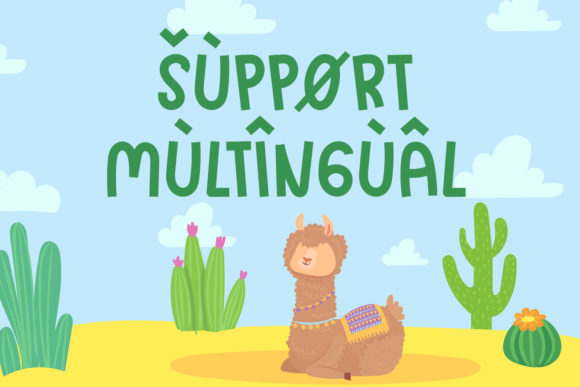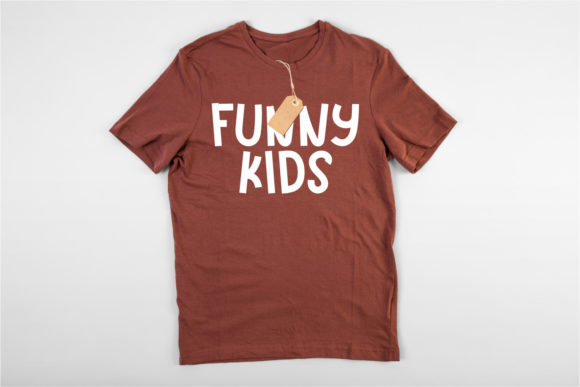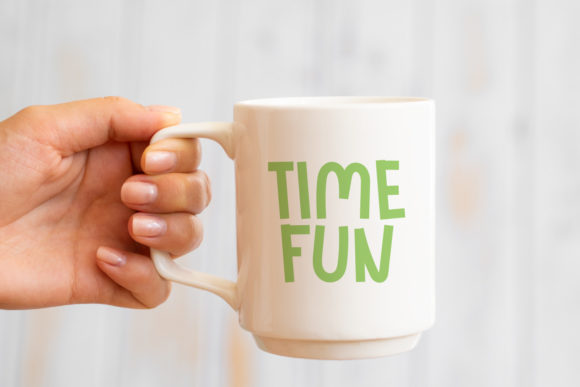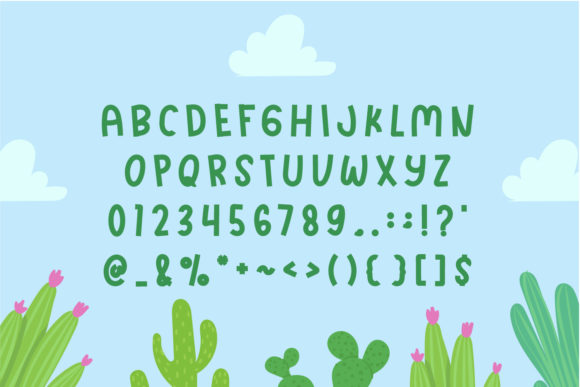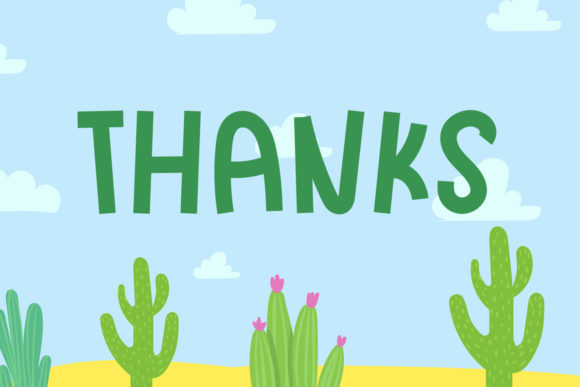
Introduction to Playfuns Font
Have you ever stared at a blank canvas, eager to bring your creative vision to life, only to be held back by the perfect font to match your design? I know I have. That’s why I’m thrilled to introduce you to the delightful Playfuns Font, a charming display font that’s sure to add a playful touch to any project.
Whether you’re working on a cartoon-inspired design, a children’s game, or just a whimsical creation that needs a little extra love, the Playfuns Font is an absolute must-have in your design arsenal. This font is a valuable resource for designers, offering a unique blend of fun and sophistication that’s perfect for adding a personal touch to your creative projects.
Key Features of Playfuns Font
- Includes a wide range of characters, including uppercase and lowercase letters, numbers, and symbols
- Unique, playful design makes it perfect for adding a creative touch to any project
Honest Review: Playfuns Font
As a designer, I’m always on the lookout for high-quality design resources to elevate my creative projects. Recently, I had the chance to work with the Playfuns Font, and I must say, it’s been a game-changer.
Here are some things that work well with the Playfuns Font: ✨
- Unique and playful characters that add a fun touch to any design.
- High-quality typography that looks great on both digital and print materials.
While the Playfuns Font is an excellent design resource, there are a few limitations to keep in mind: ⚠️
- Some characters may not be available in certain languages.
Overall, I’m really impressed with the Playfuns Font. Its unique style and high-quality typography make it a great addition to any design arsenal. If you’re looking for a fun and creative font to spice up your next project, I highly recommend giving it a try.
Tips for Getting the Most Out of Playfuns Font
Use the transparent background feature to create stunning graphics with the Playfuns Font. You can also experiment with different font combinations to add depth and interest to your design.
Common Use Cases for Playfuns Font
Playfuns Font is ideal for creating eye-catching social media graphics, posters, and flyers. It’s also great for designing logos, business cards, and other marketing materials.
The Crimson Text Font is a high-quality serif font designed for body text, making it perfect for use in long-form content, such as articles and books. It’s also suitable for use in design resources, like magazines and newspapers, where a classic, elegant look is desired.
Compared to Playfuns Font, Crimson Text Font offers a more formal and professional look, making it suitable for use in corporate design projects and other high-end creative endeavors. It’s also available for free download and features a transparent background.